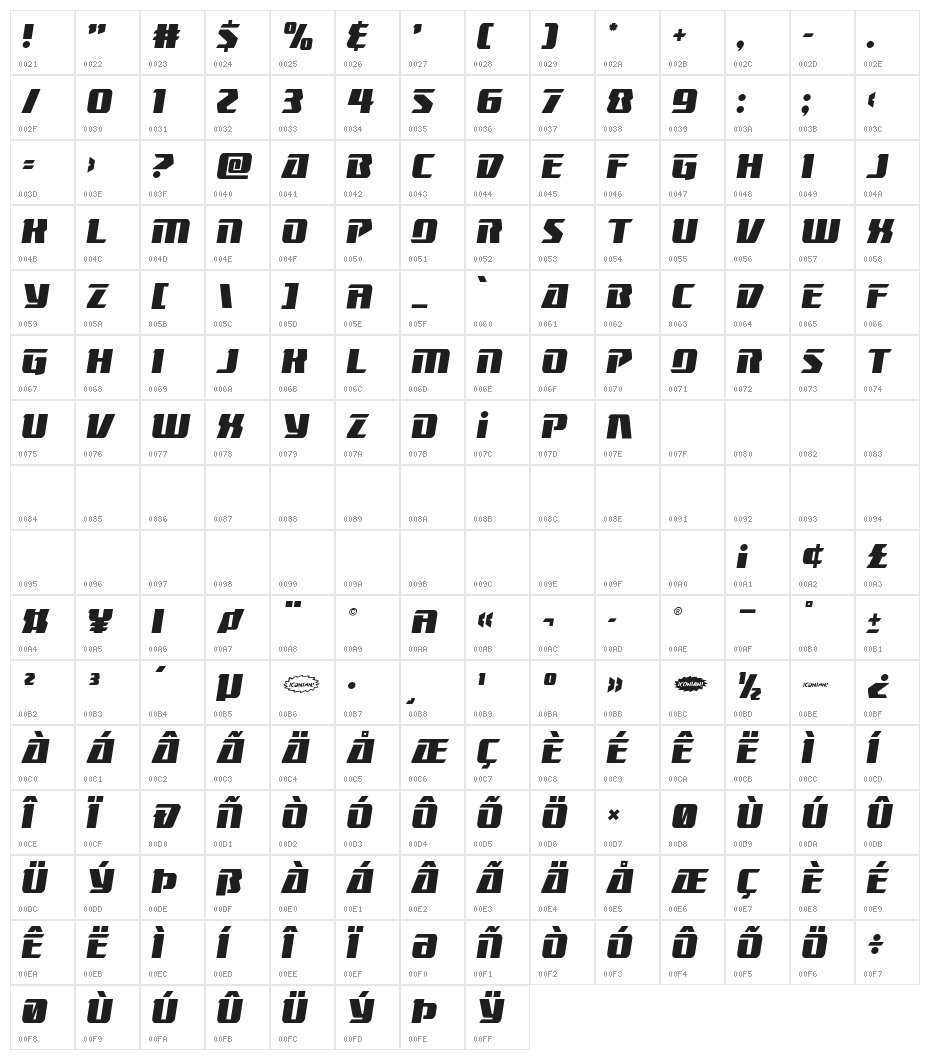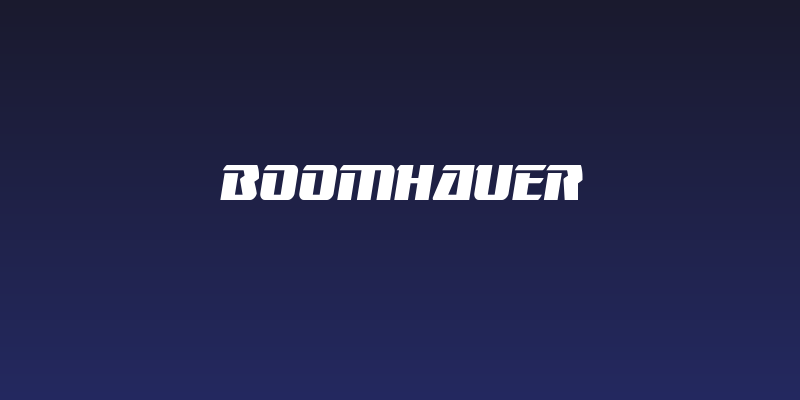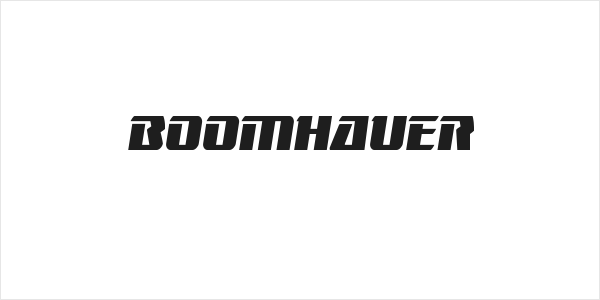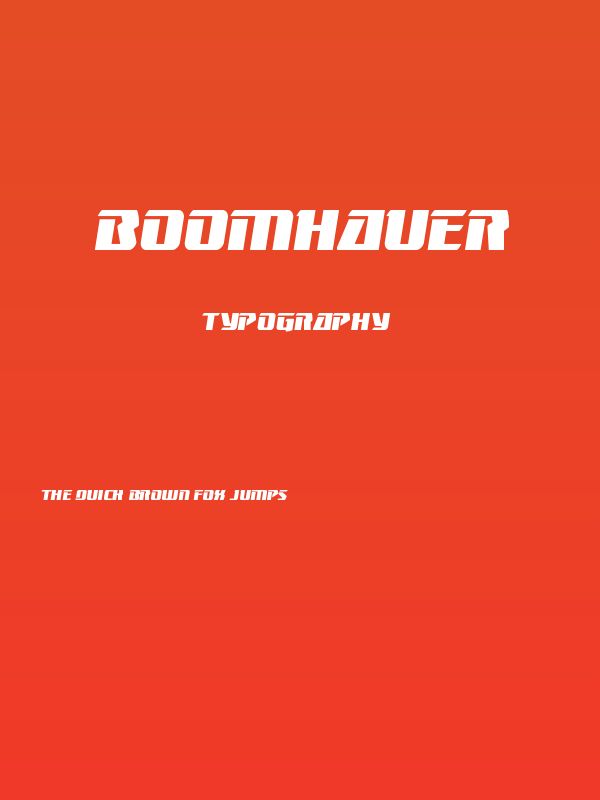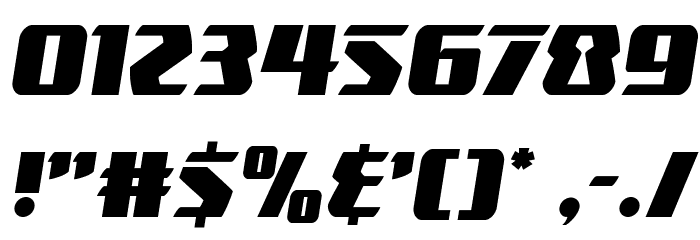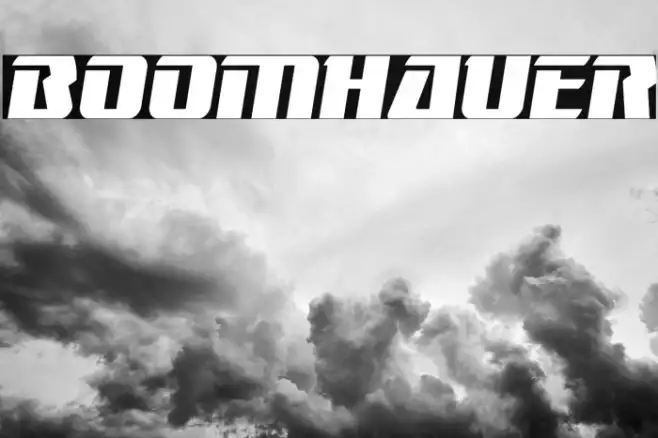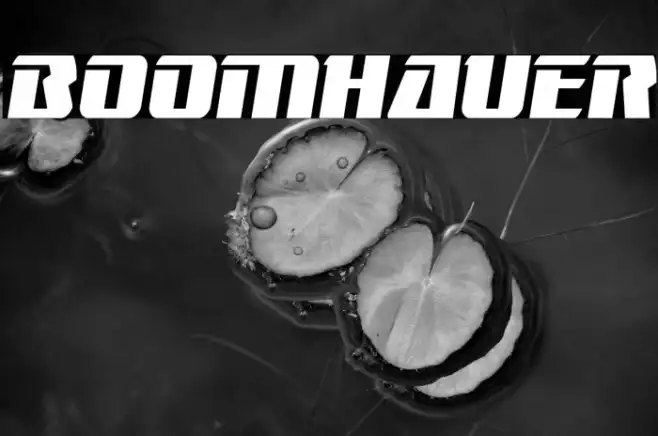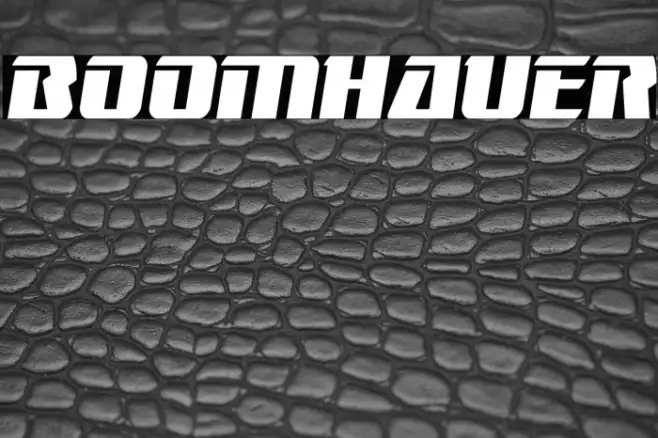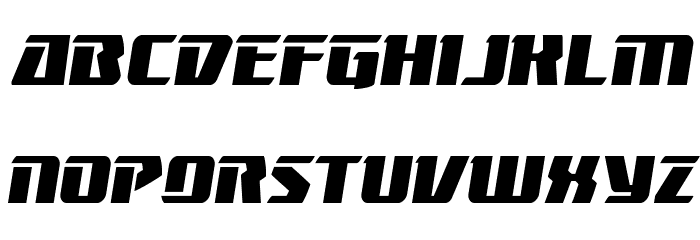
Boomhauer Font
Boomhauer Description
This font features a bold and dynamic style with a strong geometric influence. The characters are designed with sharp angles and a slightly italicized slant, giving them a sense of motion and energy. The uppercase letters are particularly striking, with a futuristic and aggressive look that makes them stand out. The lowercase letters maintain the same angular style, ensuring consistency across the typeface. Numbers and special characters are equally bold and angular, making them highly legible and visually impactful. This font is ideal for projects that require a modern and edgy aesthetic.
| Proposed Projects | Ideal for sports branding, video game titles, posters, and any project needing a modern, energetic look. |